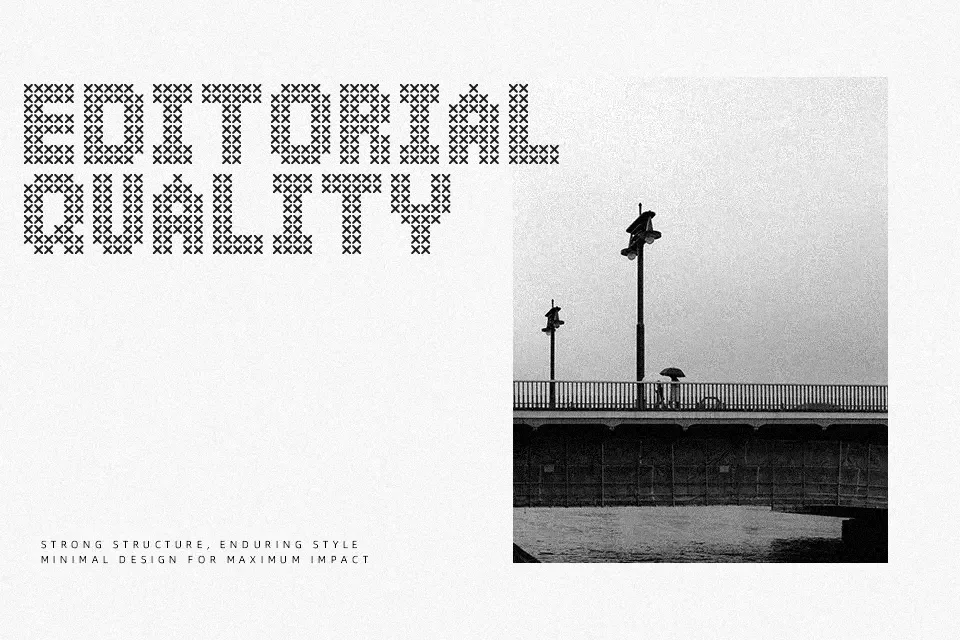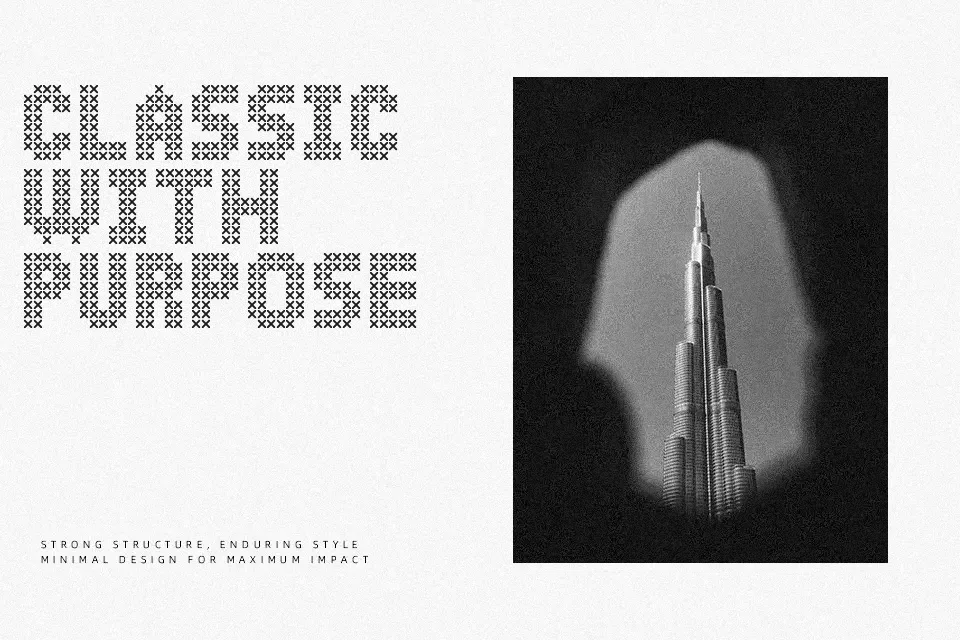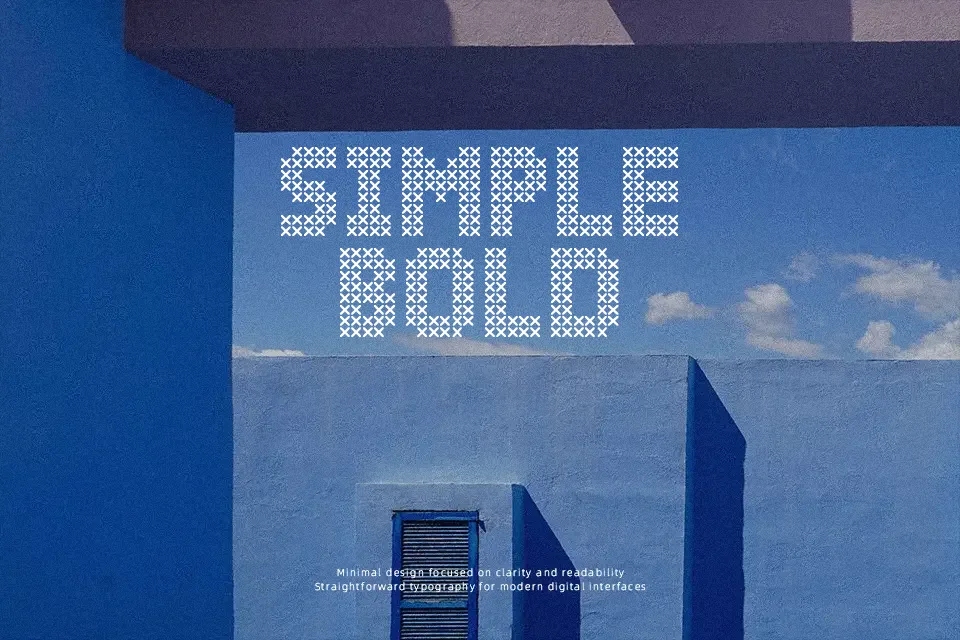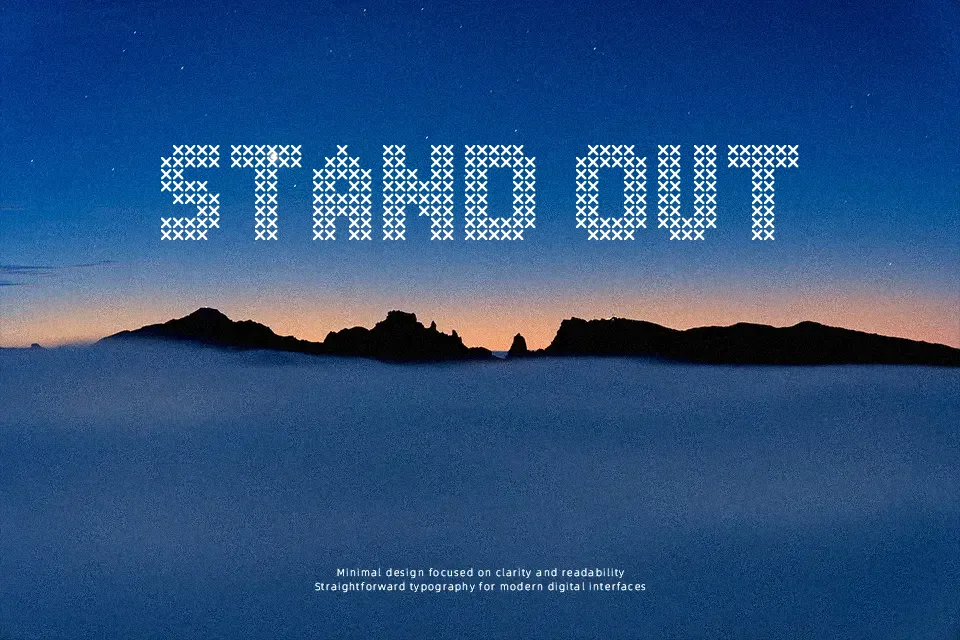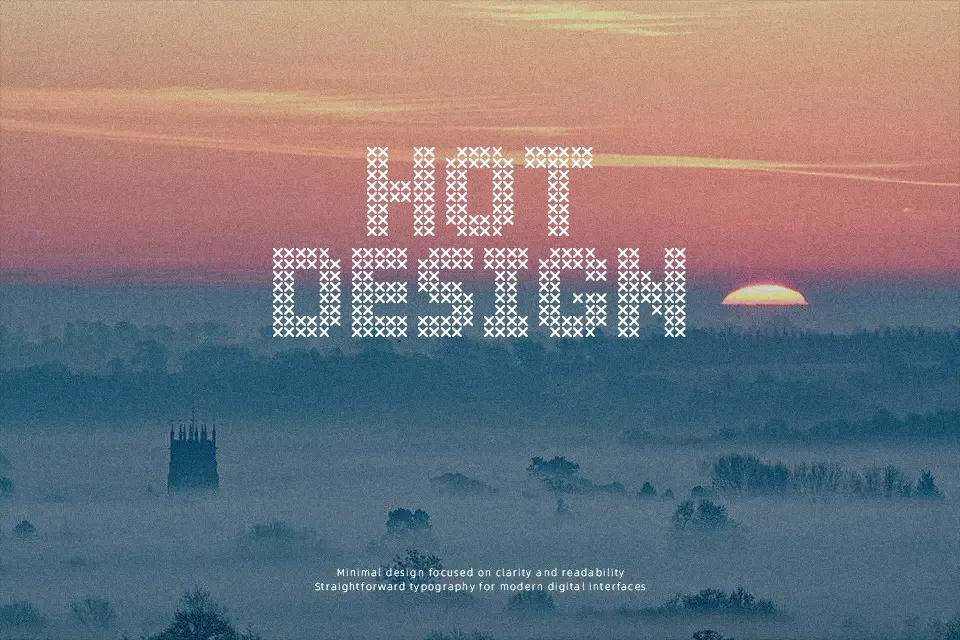
Simple Stitch Font
Simple Stitch Font establishes a distinctive decorative presence through structured letterforms that replicate hand-sewn cross stitches. Each glyph features uniform stroke weight constructed from intersecting diagonals, maintaining a steady visual rhythm and even letter spacing across short phrases. The generous internal counter spaces and upright proportions keep individual characters identifiable when set as prominent titles. This typeface performs exceptionally well on textile merchandise, festival posters, and festive packaging concepts. However, the broken stroke structure reduces clarity in compact settings, so the letterforms are less suitable for dense body paragraphs or small digital interface labels.
Best For: artisanal product packaging,holiday greeting cards,textile workshop posters,craft event banners
Not Ideal For: continuous book text,mobile interface labels,technical manuals,dense corporate reports
Perfect for christmas, headline, and holiday, with a creative and decorative style.